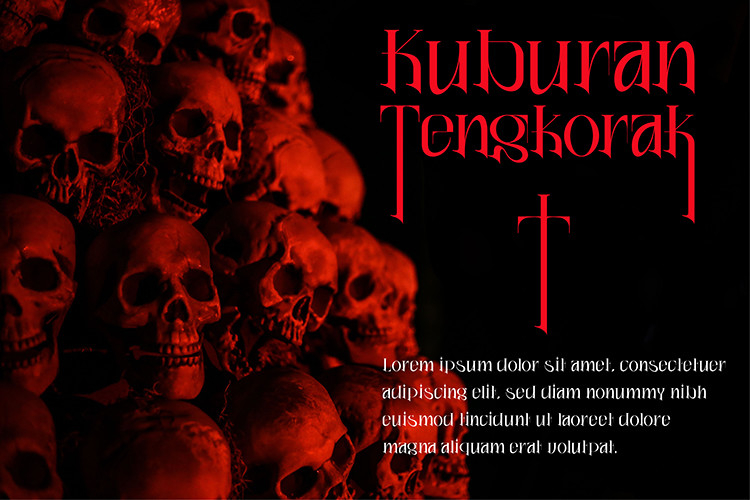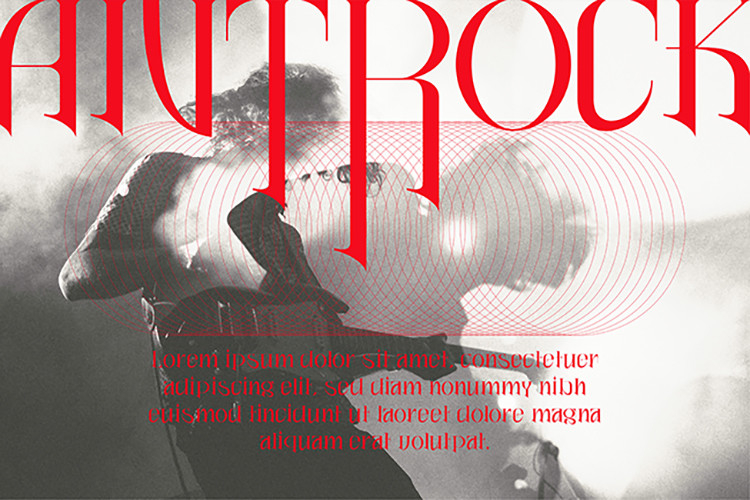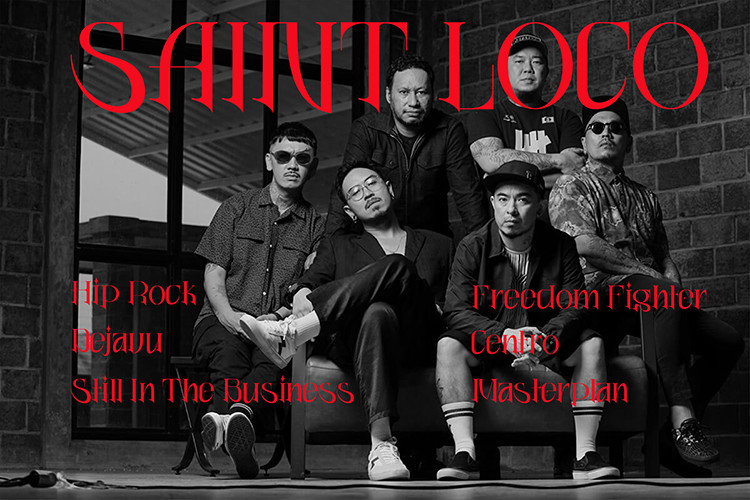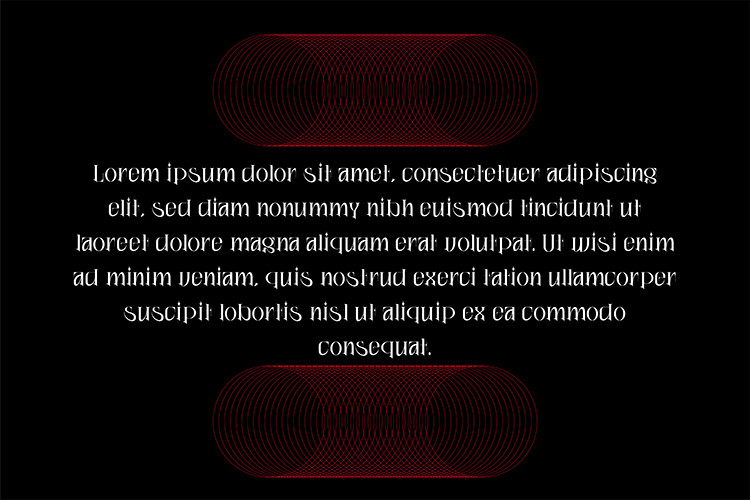
About Jhenic Font
JHENIC is an elegant, gothic-inspired serif, all-style cap serif with a set of alternative styles for every character that will make any presentation or design stand out! You can use this font for various purposes such as magazines, branding, posters or for gothic style poster invitations.